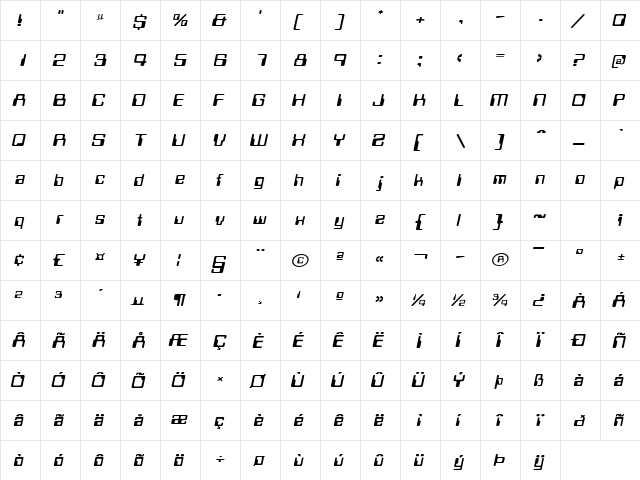
LoganExtended Italic
Design Context for LoganExtended Typeface
LoganExtended offers clean, dependable letterforms without strong stylistic allegiance, making it a practical choice for designers who need flexibility. The dynamic lean of this cut emphasises speed and emphasis in any layout.
Pro Tip: Use LoganExtended for emphasis, pull quotes, and subheadings where its slanted energy can add rhythm to the layout.